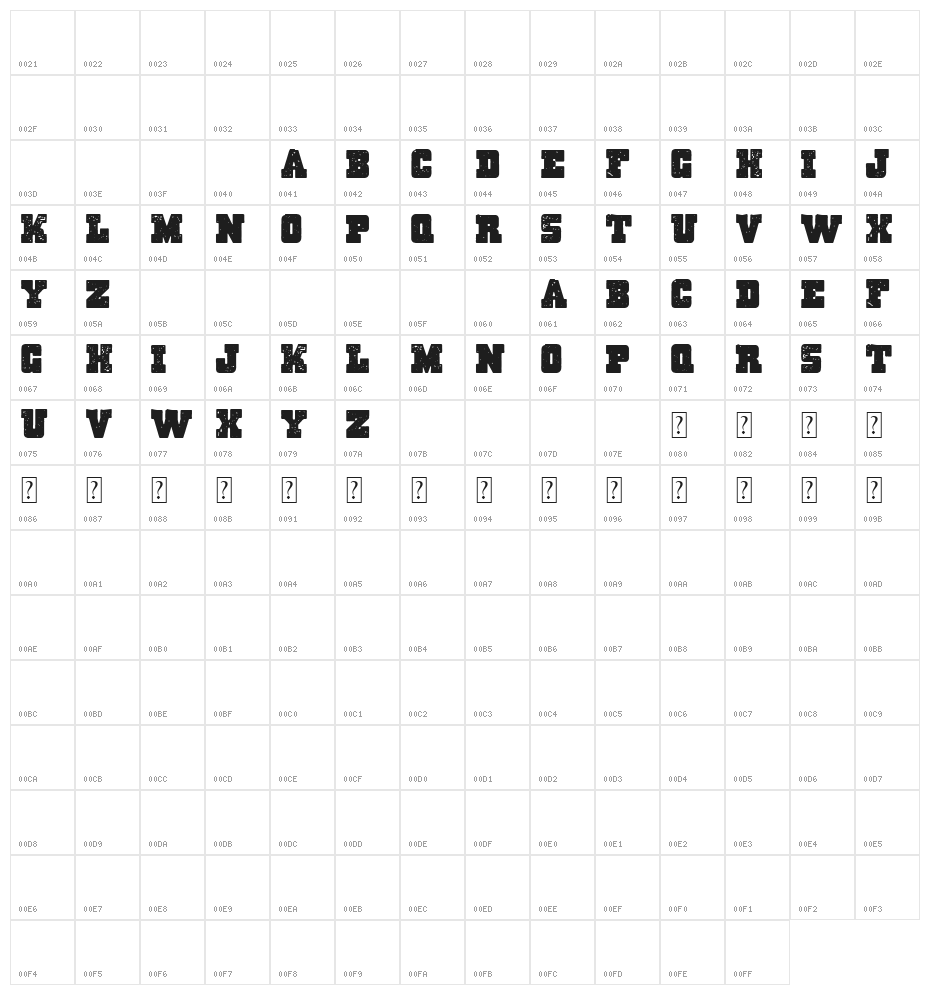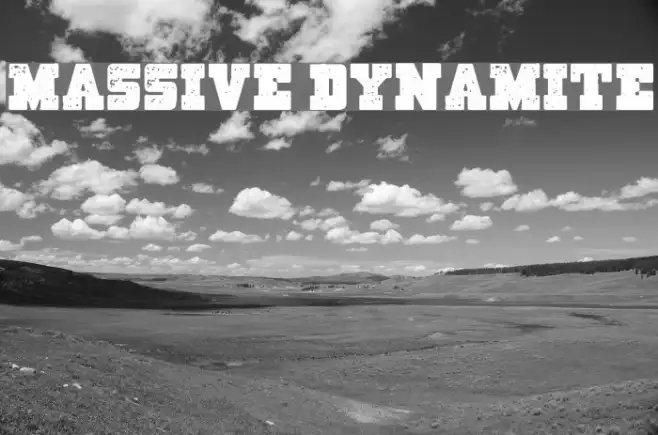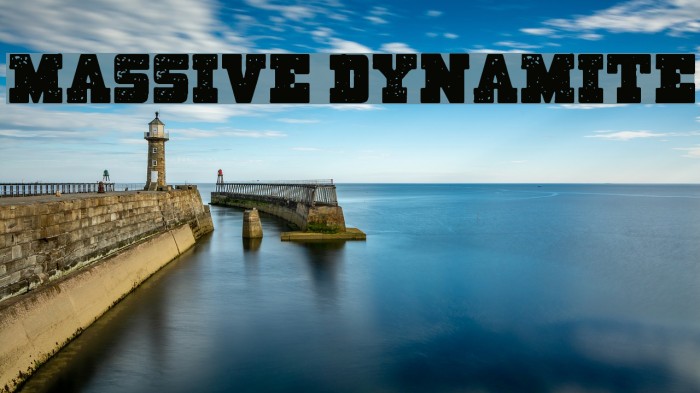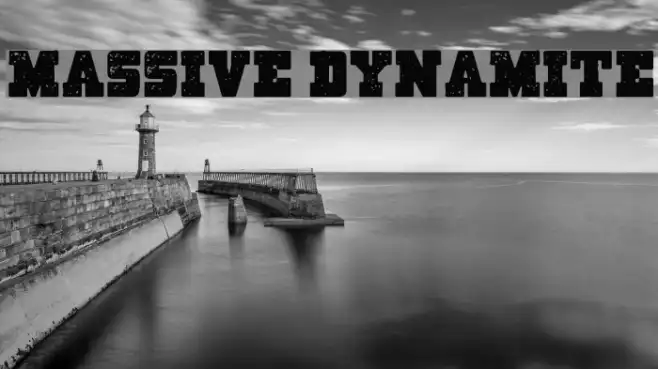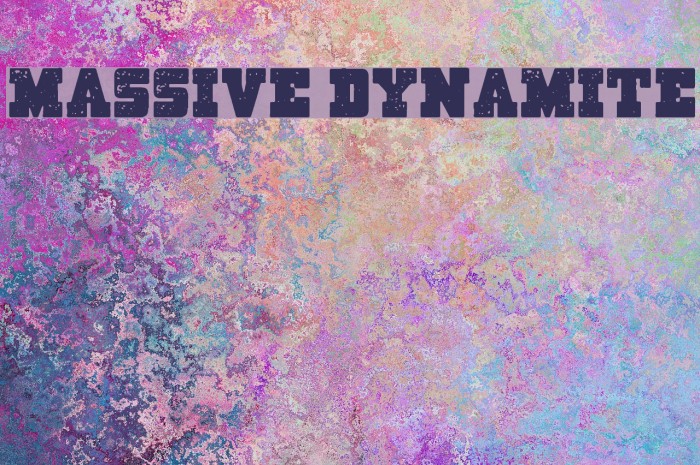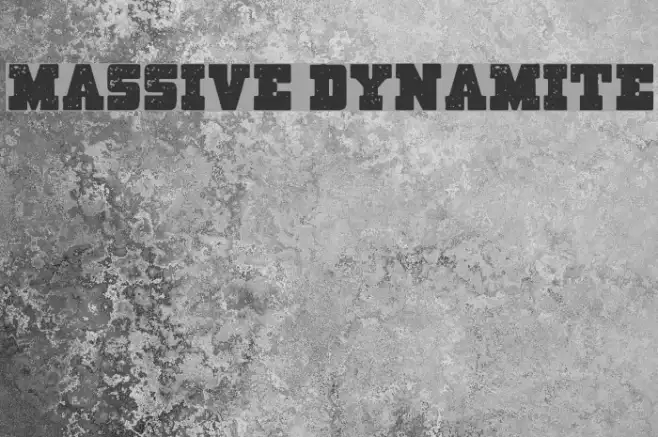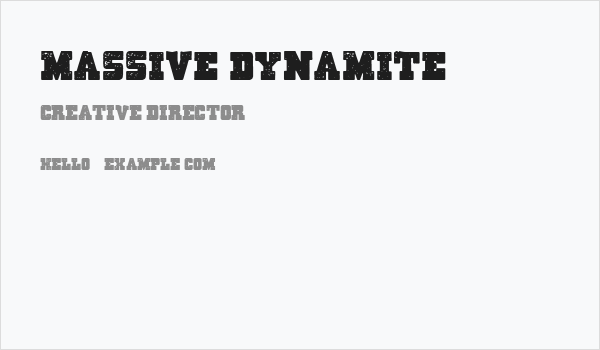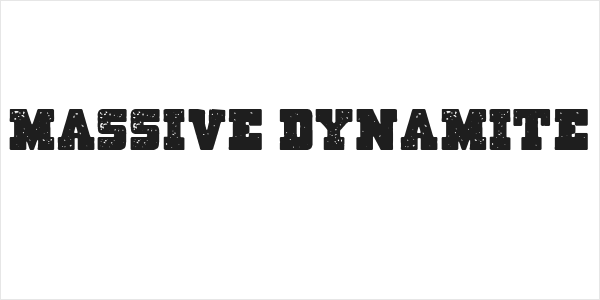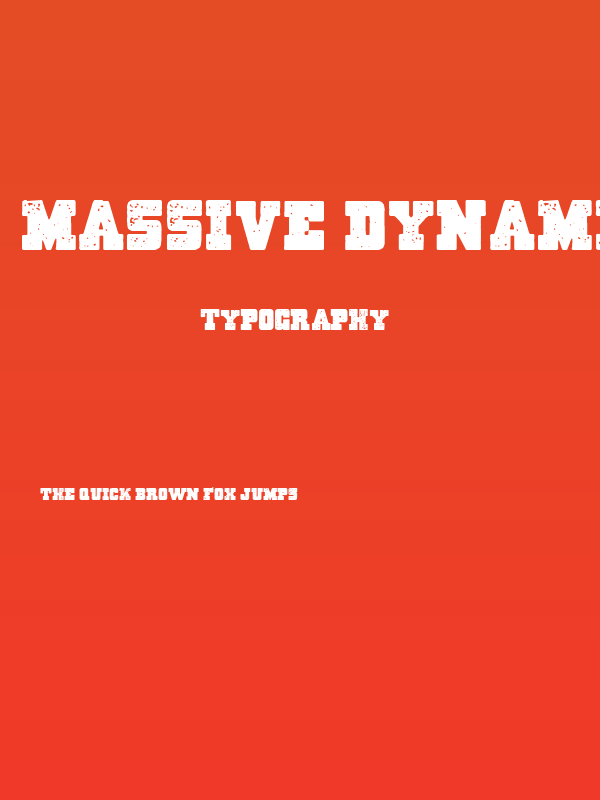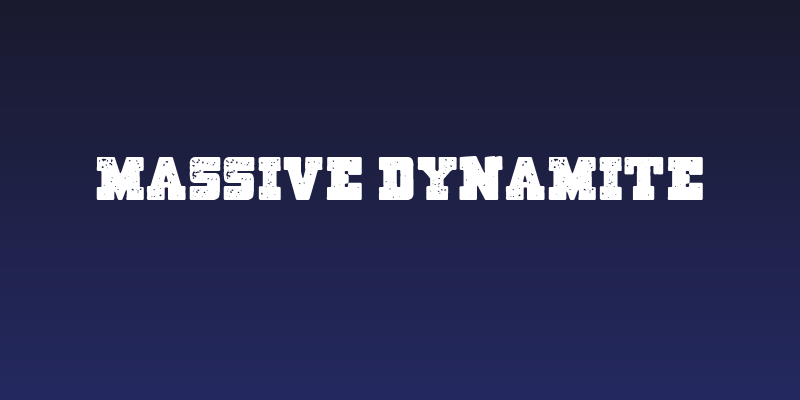
Massive Dynamite Font
Massive Dynamite Description
This font features a bold, rugged design with a distressed texture that gives it a vintage, worn-out look. The characters are blocky and robust, with a strong presence that makes them stand out. The texture within each letter adds a unique, gritty feel, reminiscent of old western or industrial styles. The font is all uppercase, emphasizing its bold and impactful nature. Its heavy weight and solid structure make it ideal for attention-grabbing headlines or titles. The distressed effect is consistent across all characters, providing a cohesive and thematic appearance.
| Proposed Projects | Ideal for vintage-themed posters, logos, or branding materials that require a strong, impactful presence. |